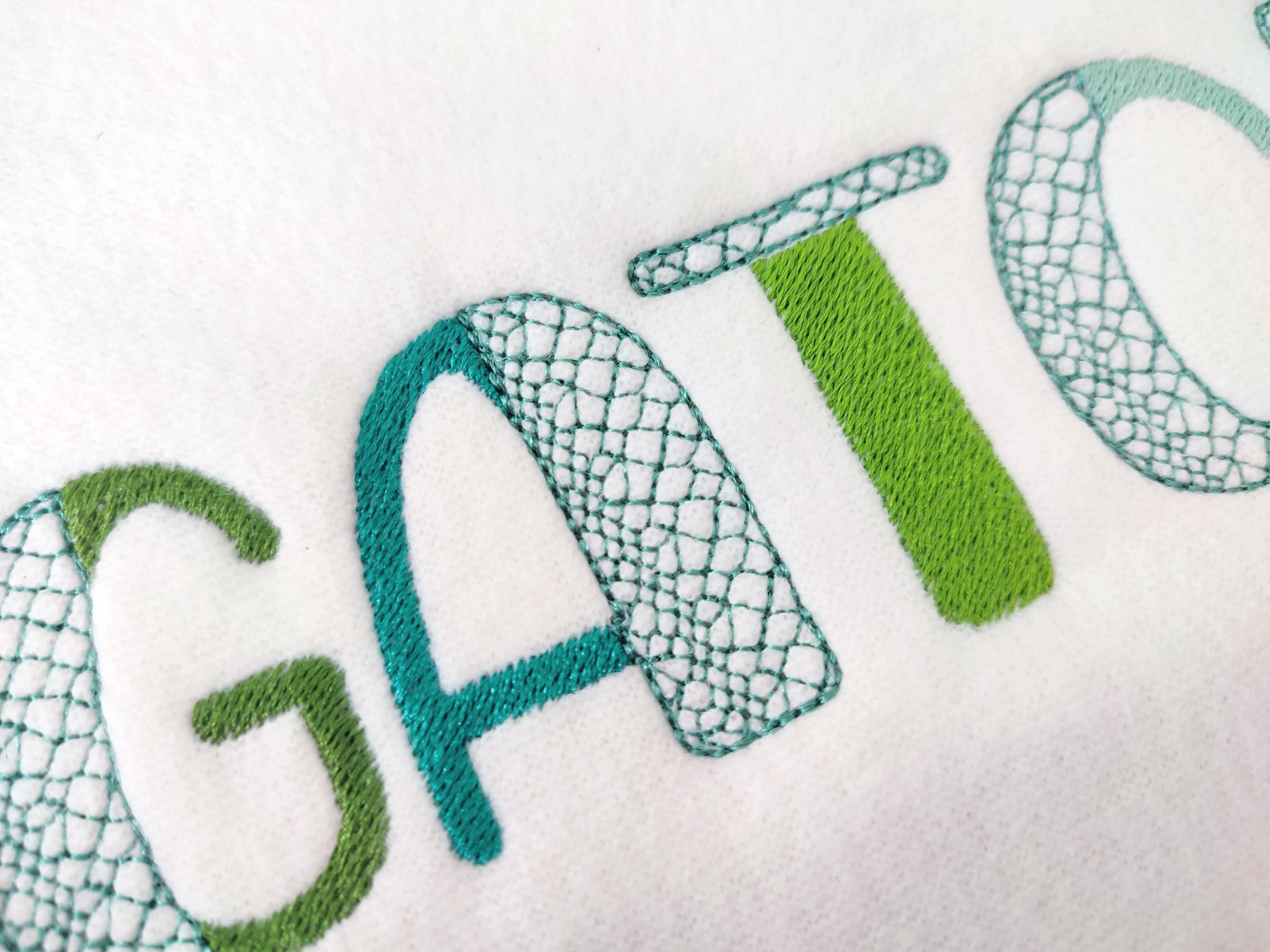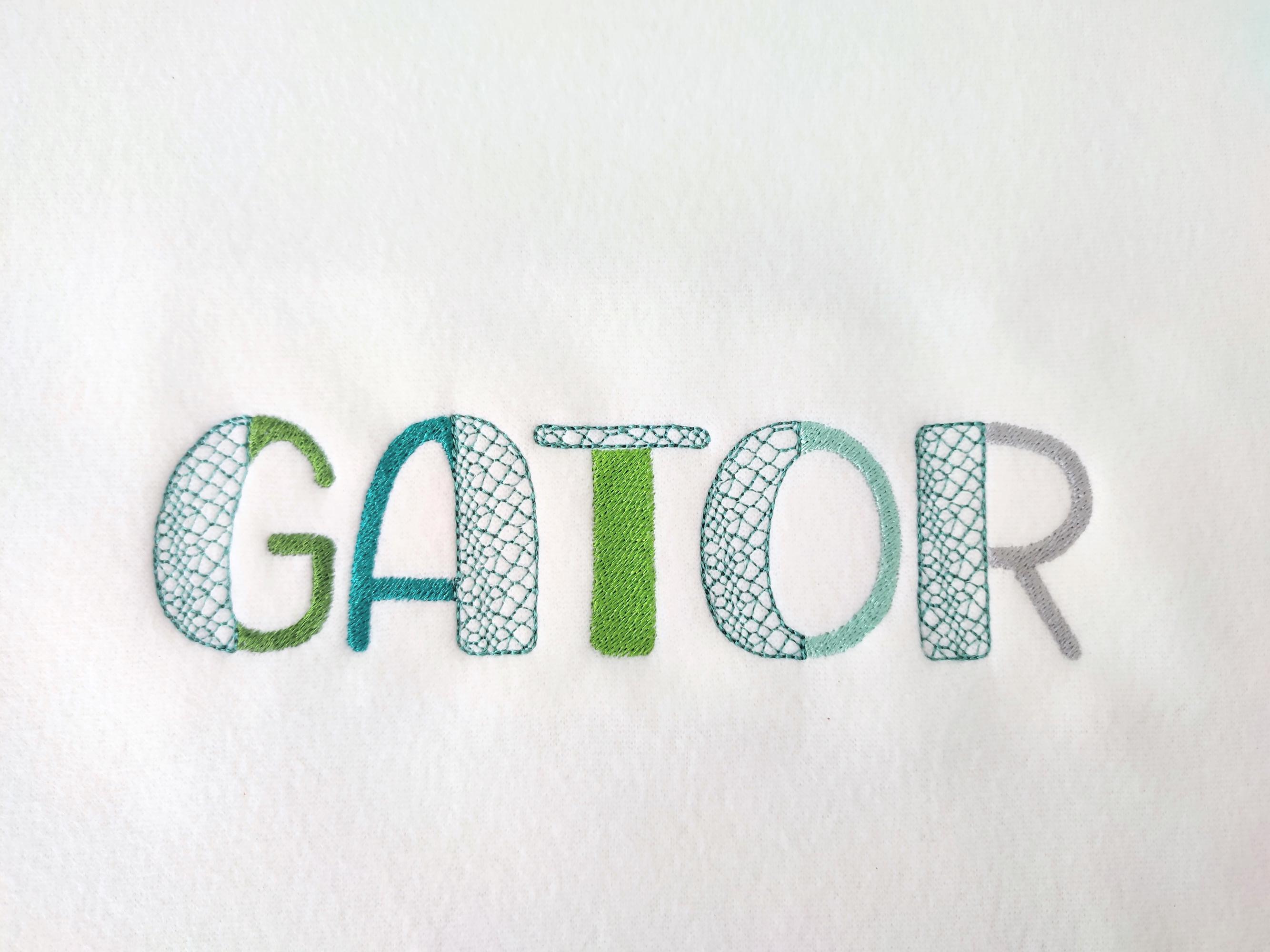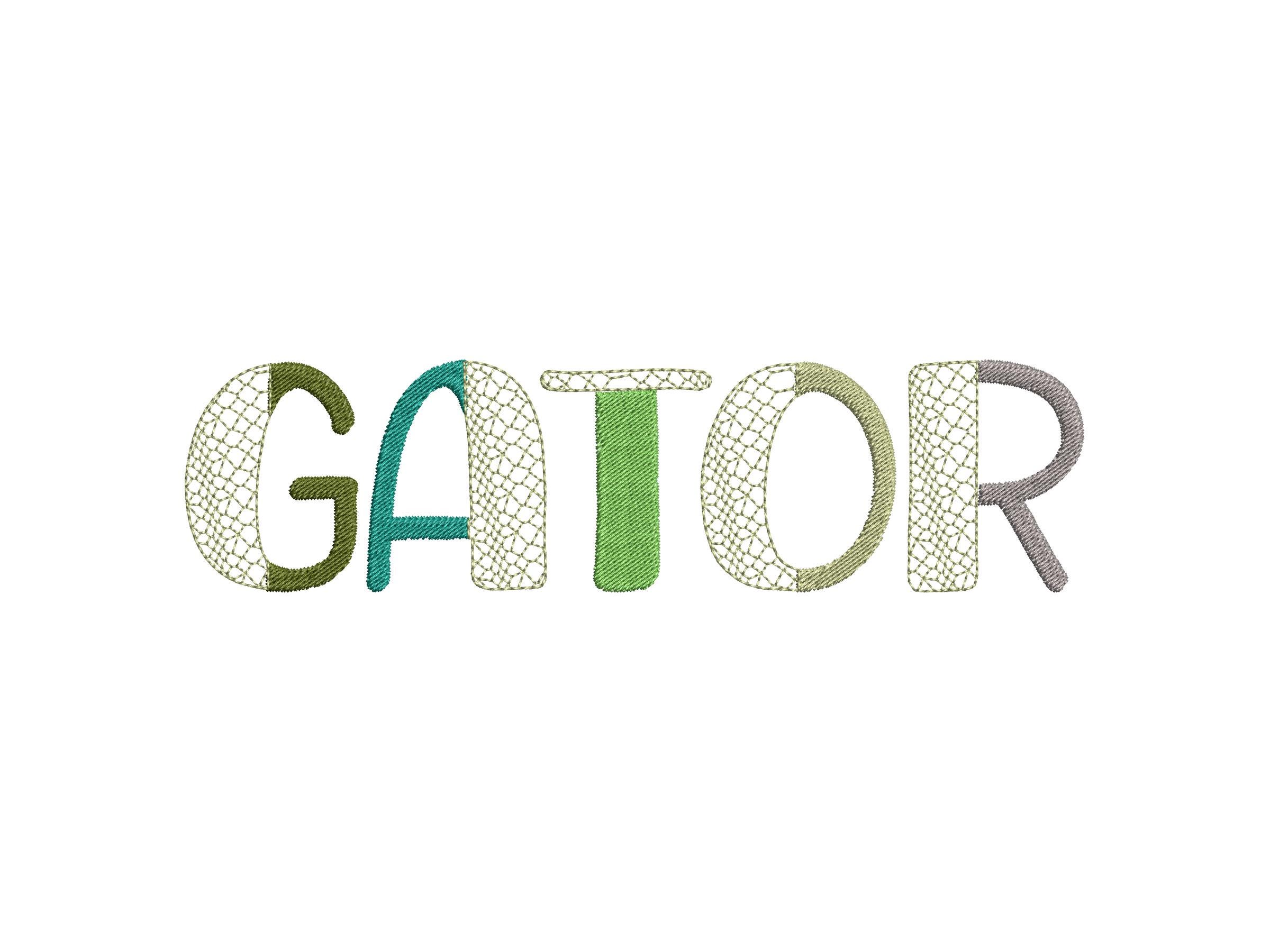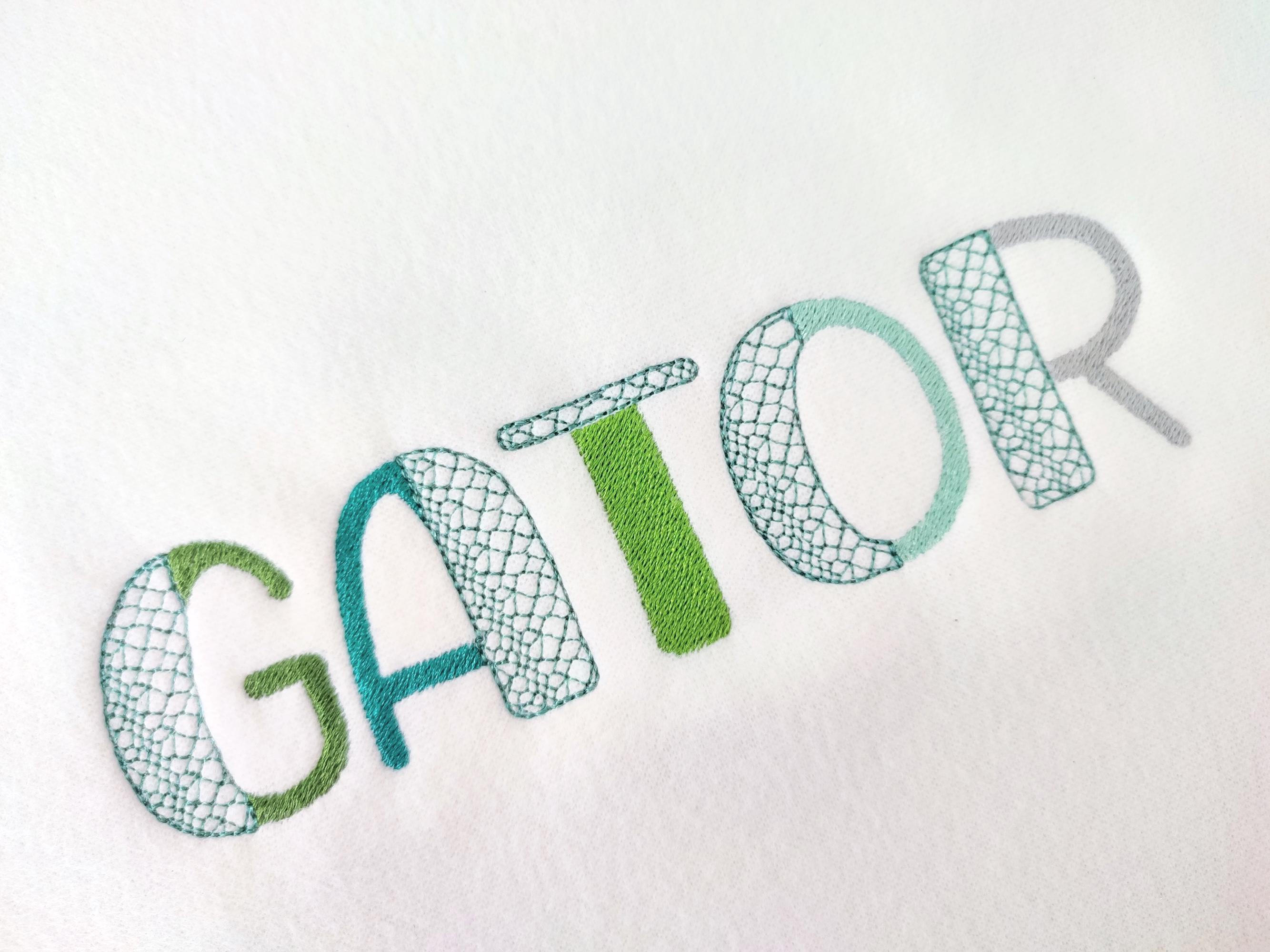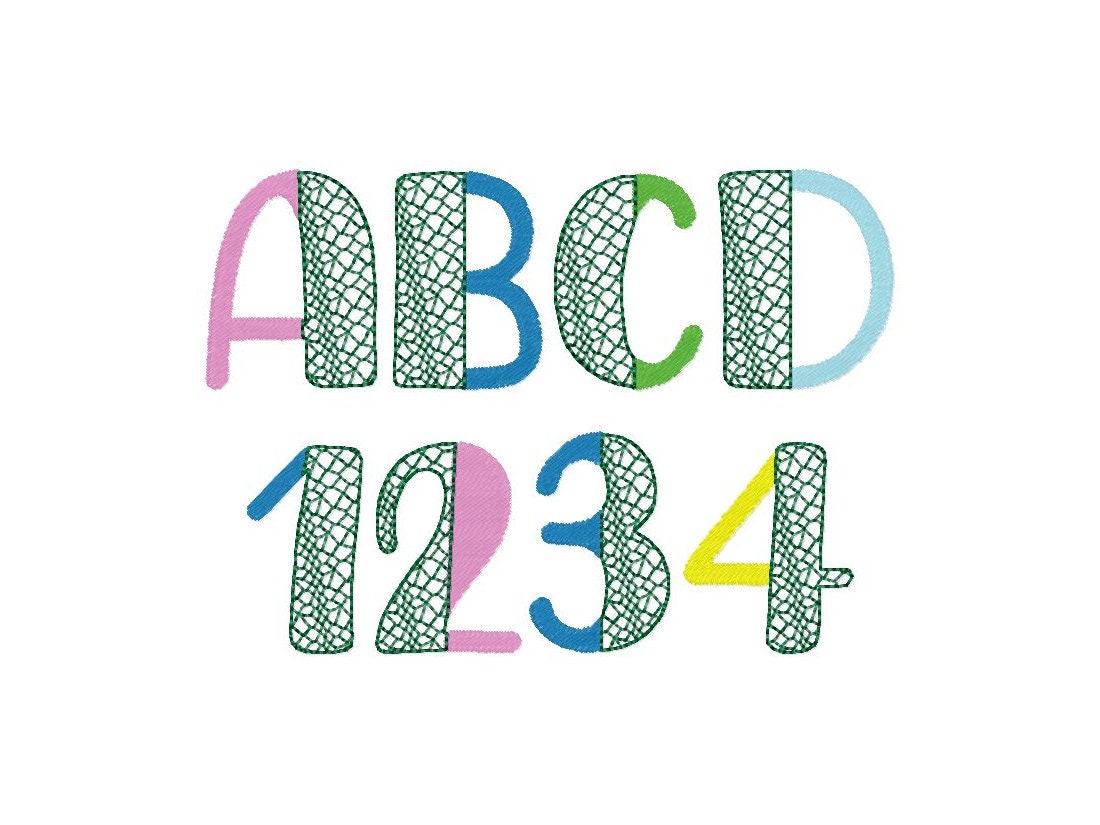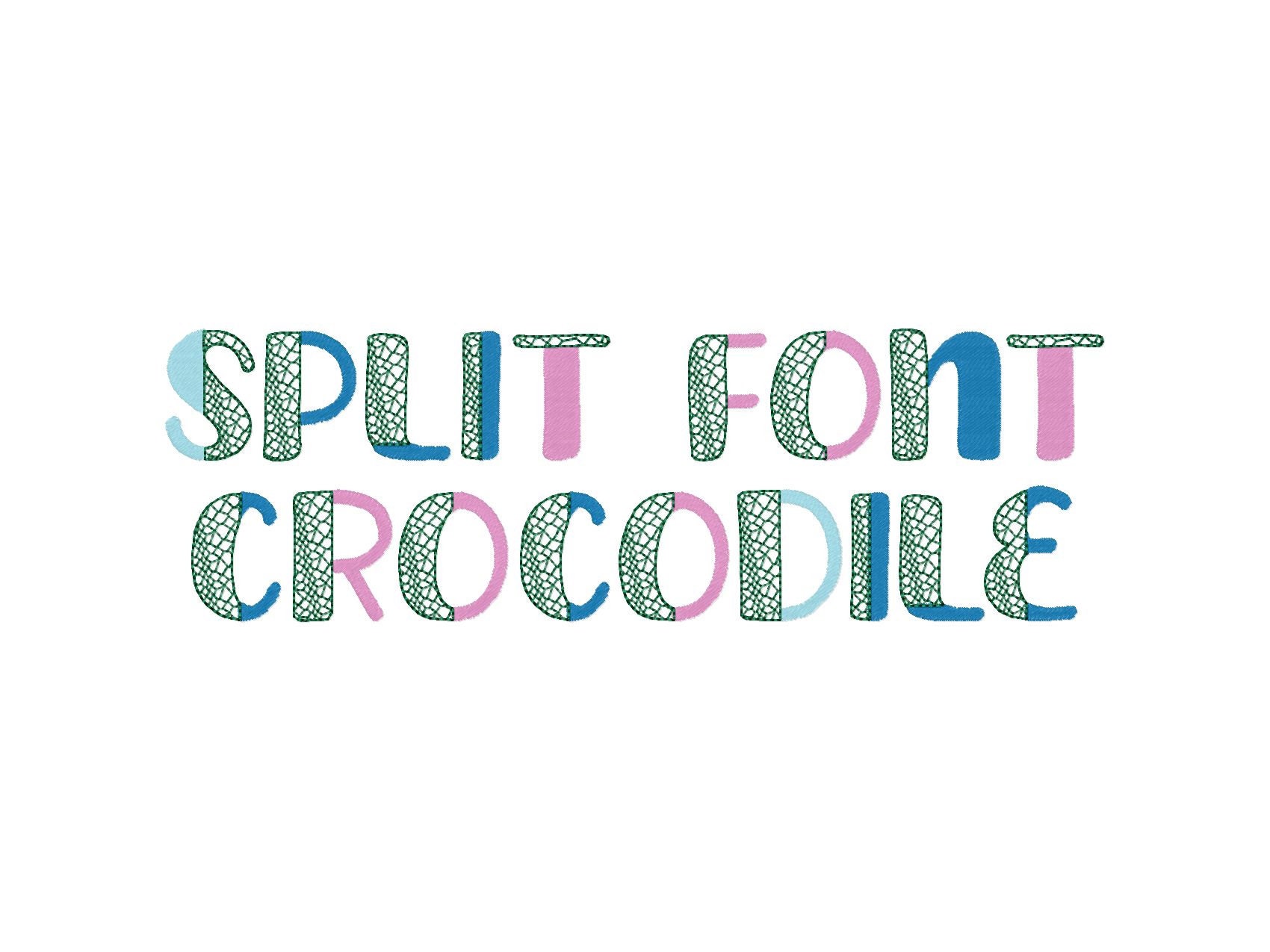
Split Font Crocodile Alligator print and fill stitch Duo font 2 colors alphabet kids boys machine embroidery designs 1 up to 3 inches, and BX
The font has fill stitch on one side, and an alligator print on the other side.
The part of the alligator print is transparent and the background fabric looks through. Stunning effect!